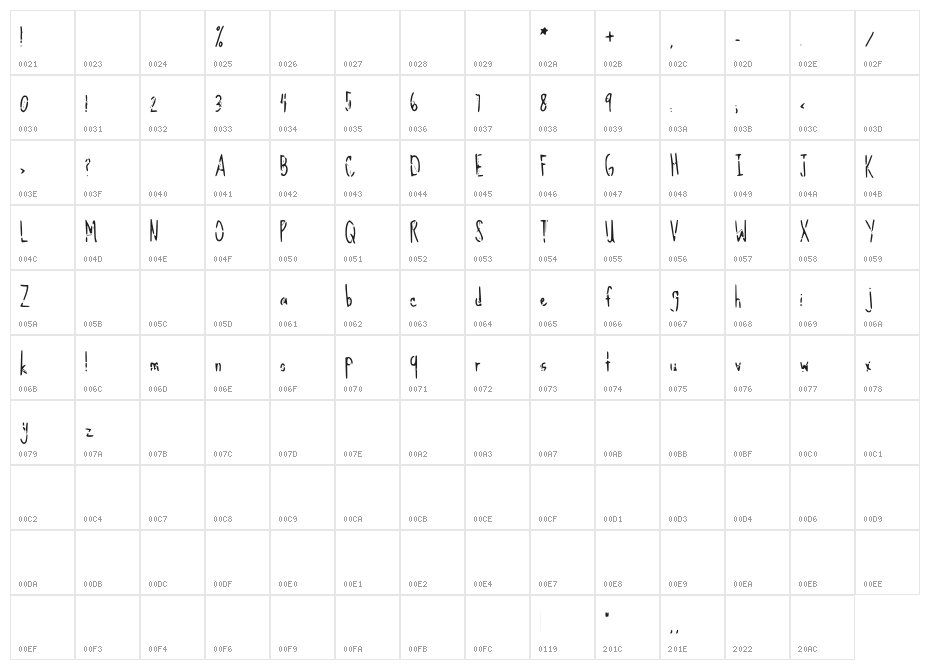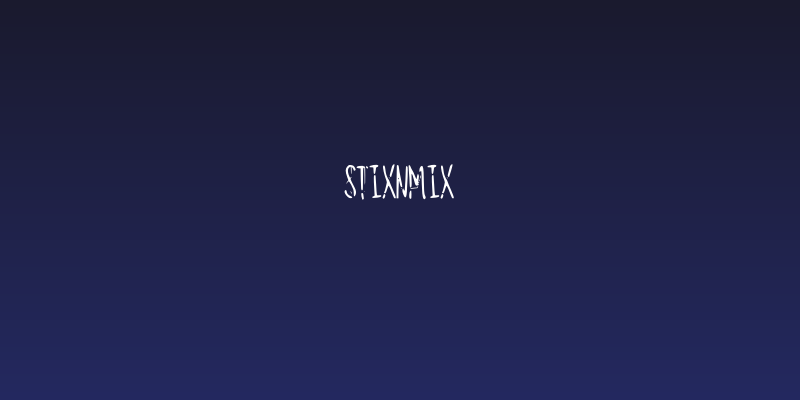
stixnmix Font
stixnmix Description
This font features a playful and artistic style, characterized by its uneven strokes and hand-drawn appearance. The letters have a whimsical quality, with varying thickness and irregular shapes that give it a unique, creative flair. The uppercase and lowercase letters maintain a consistent style, while the numbers and special characters complement the overall aesthetic. The font's distinct personality makes it suitable for projects that require a touch of creativity and individuality.
| Overall Style | Artistic, Whimsical |
| Proposed Projects | Ideal for children's book covers, artistic posters, creative branding, and playful invitations. |